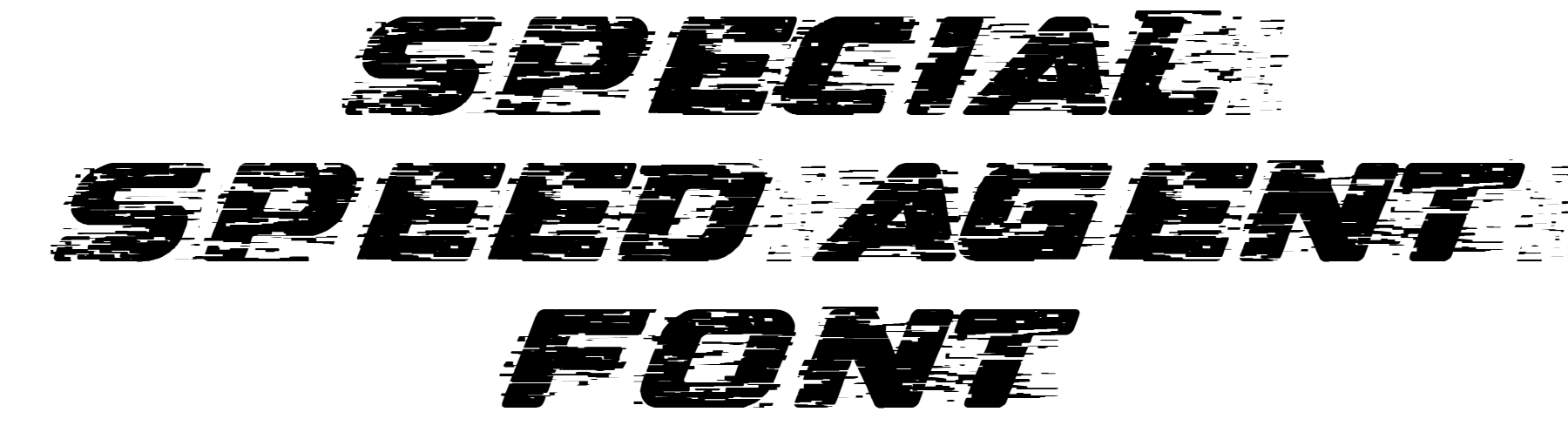
Special Speed Agent Font
Special Speed Agent
Special Speed Agent is a fancy font created by Woodcutter Manero. It's a decorative display font with plenty of personality, made to grab attention. It's a free download, and you can try it with your own text in the preview above first.
Special Speed Agent covers the full alphabet in upper and lowercase, plus all ten numbers, so you can set names, dates and prices without switching fonts. Common punctuation such as &, !, ? and @ is included as well. It also has the accented letters you need for Spanish, French, German, Portuguese and Italian.
Designers usually reach for fonts like Special Speed Agent when they're making posters, logos and eye-catching headlines. Use it for one standout word or headline and let simpler fonts handle the rest.
Yes. Special Speed Agent includes the accented letters needed for Spanish, French, German, Portuguese and Italian, so it works for more than just English.